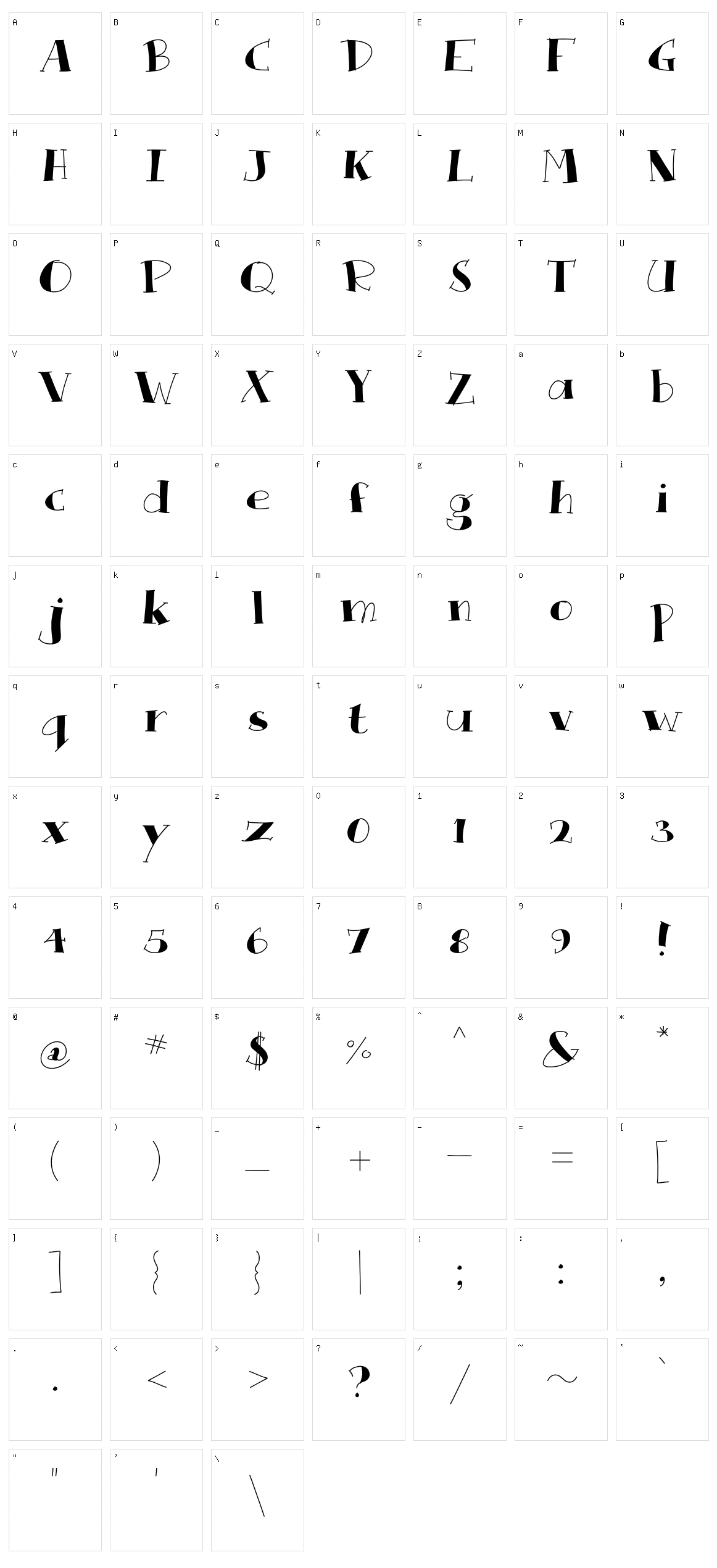
Cool thing: This font utilizes OpenType contextual and stylistic alternatives for a more realistic handwritten appearance. OpenType features are accessible in most design-related applications as well as many unrelated applications. You can read my article on how to use OpenType features in Microsoft Word here: http://leeviathan.com/opentype-features-and-how-to-use-them/#content